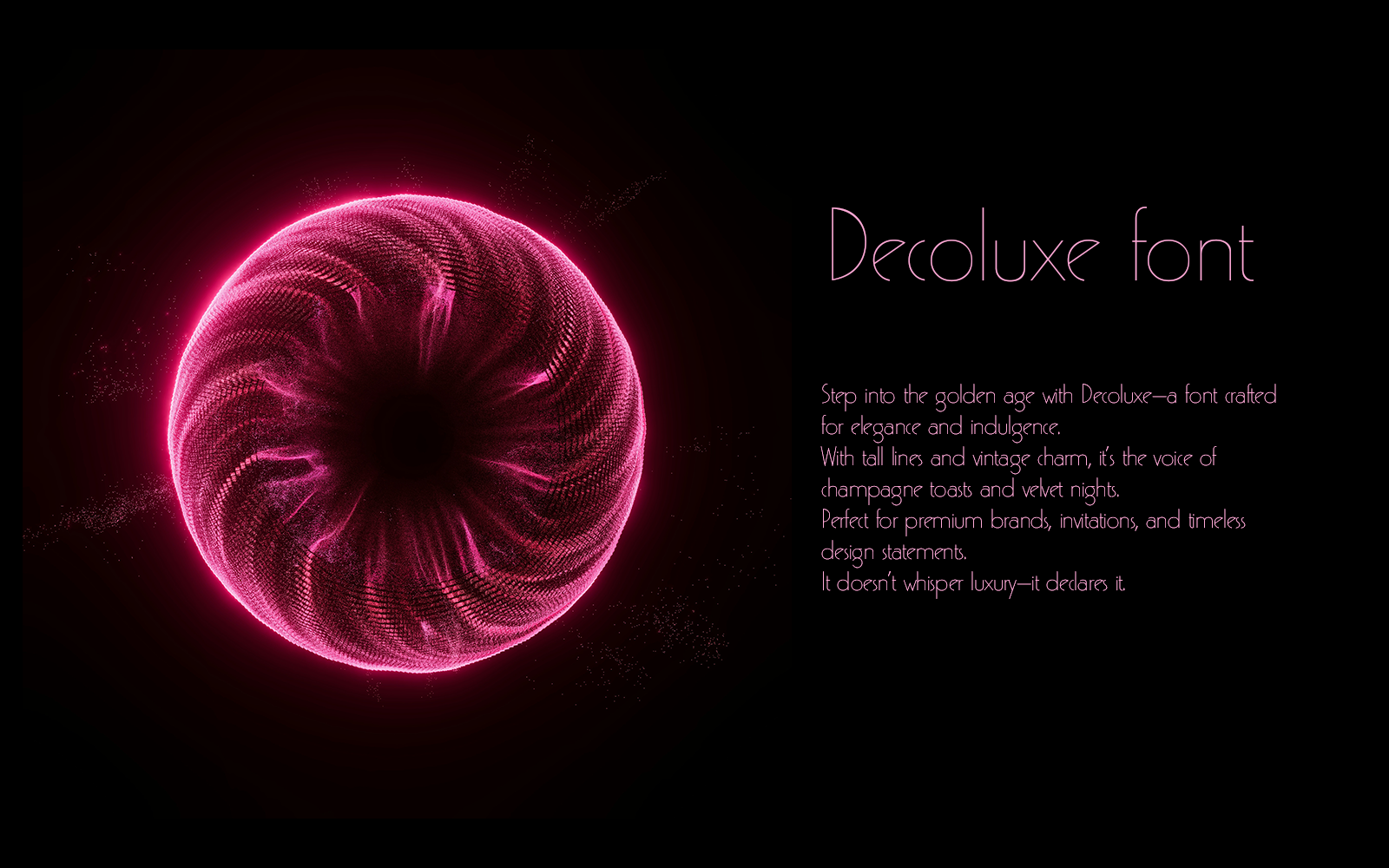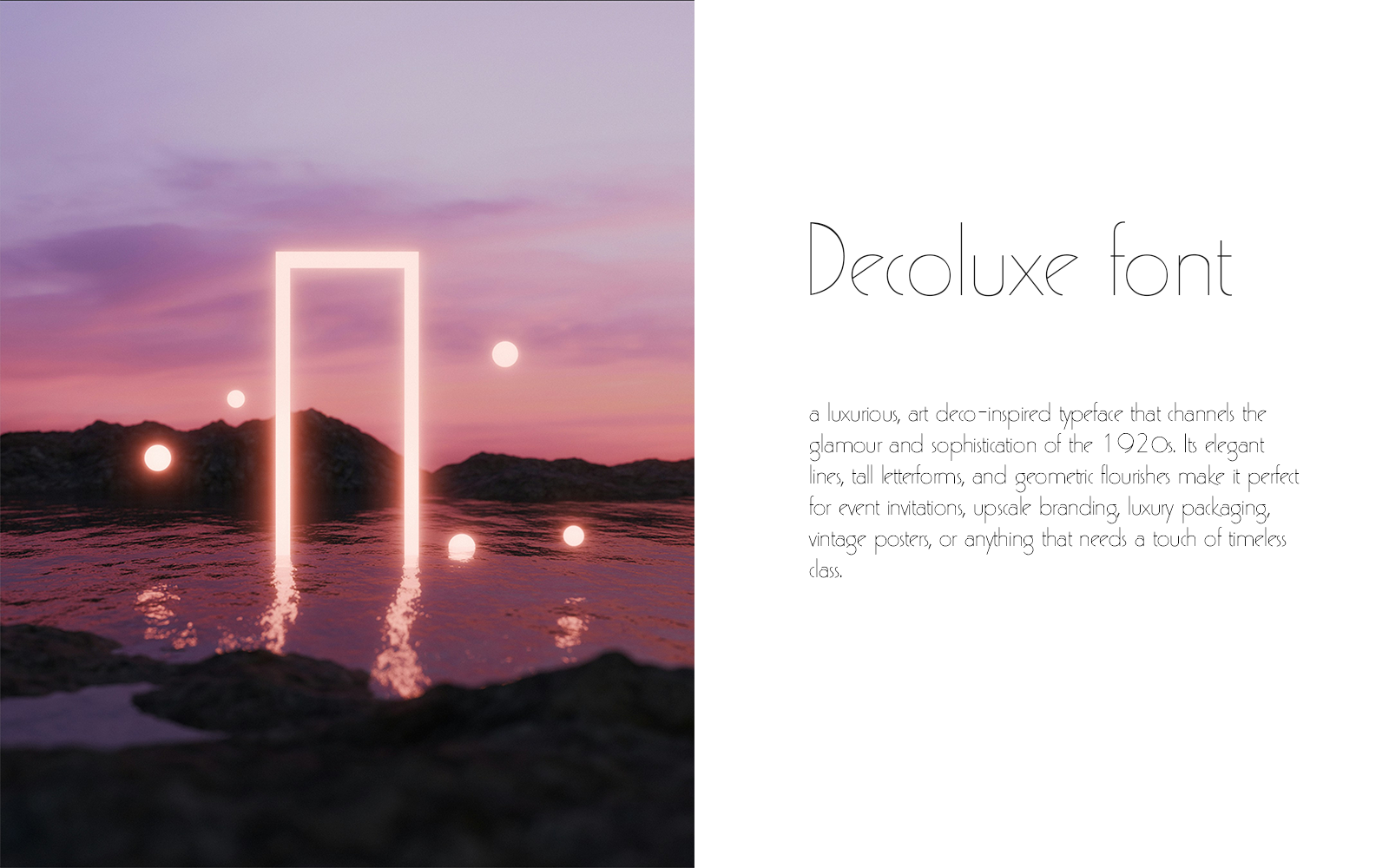
Decoluxe font-Regular-0126-25
Step into the golden age with Decoluxe—a font crafted for elegance and indulgence.
With tall lines and vintage charm, it’s the voice of champagne toasts and velvet nights.
Perfect for premium brands, invitations, and timeless design statements.
It doesn’t whisper luxury—it declares it.
Decoluxe: Let your words shine like gold.